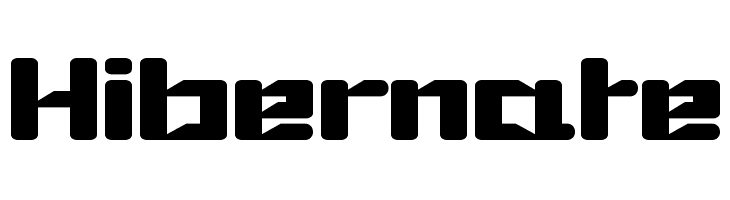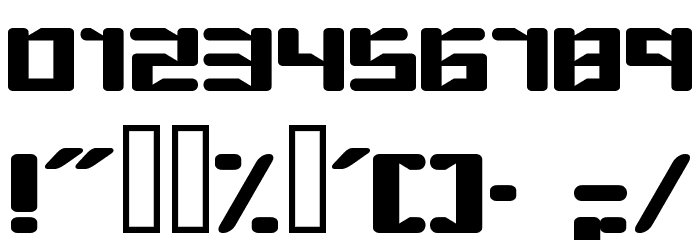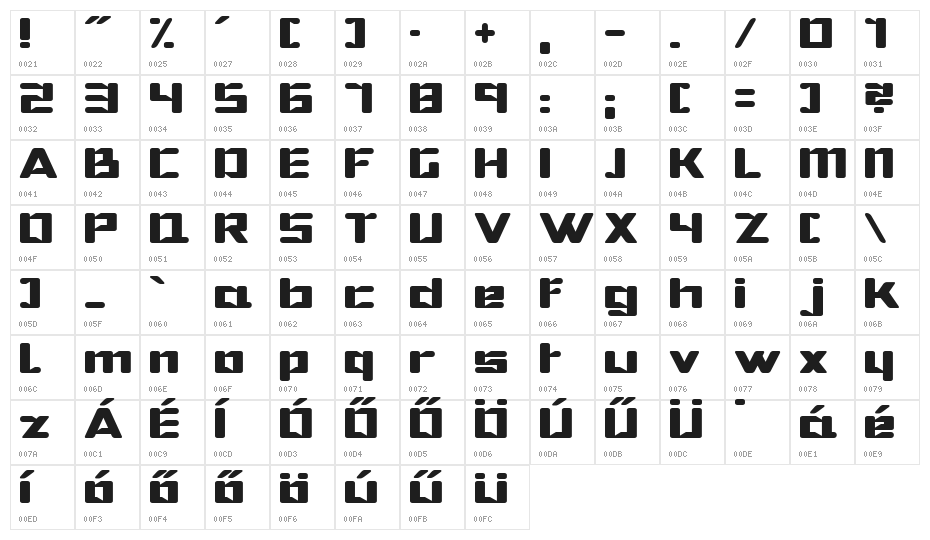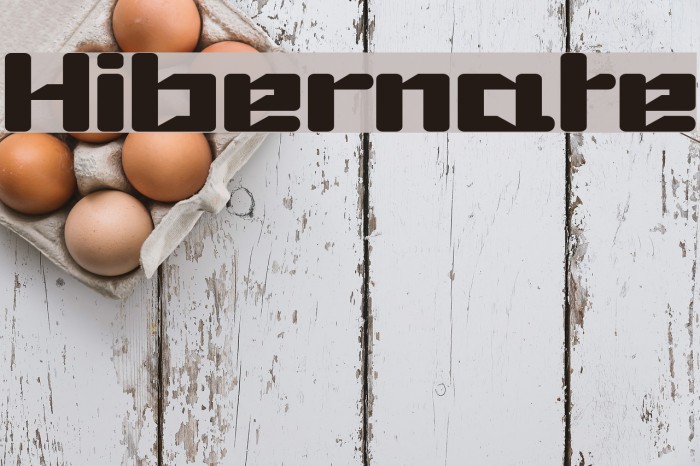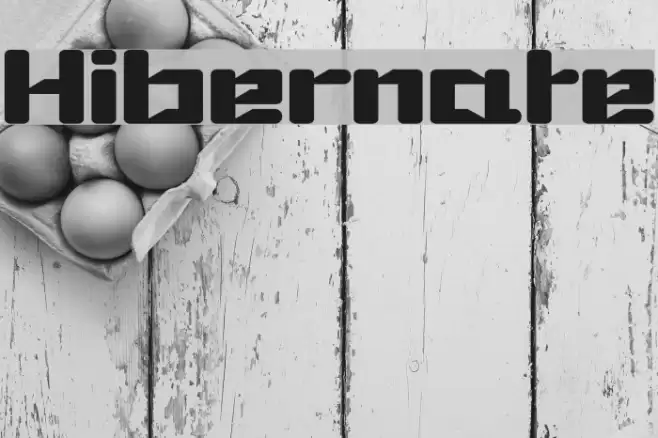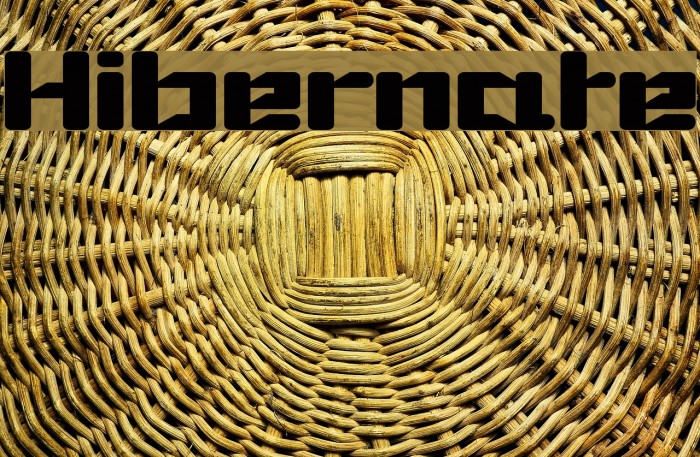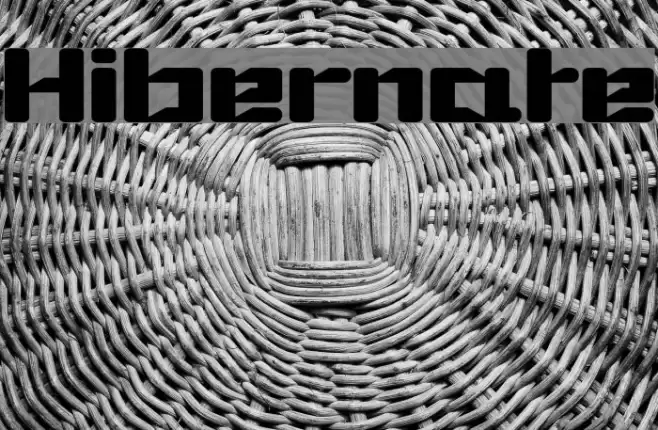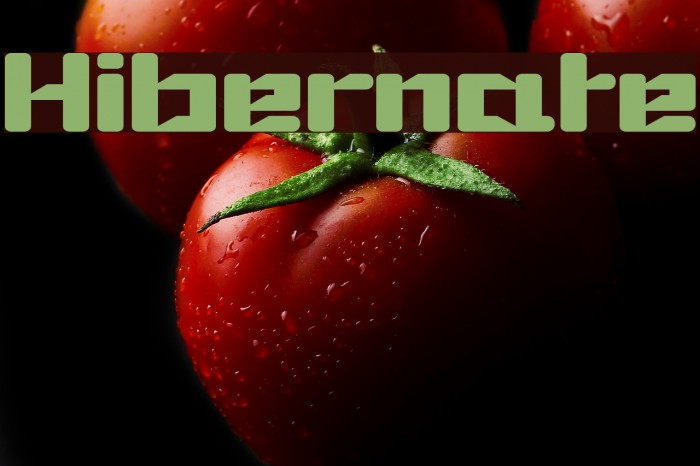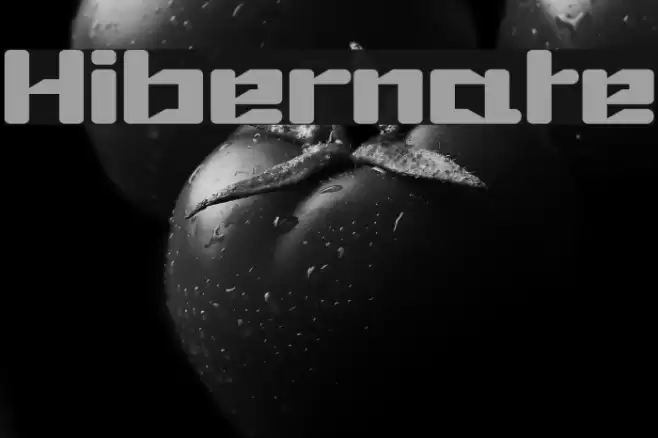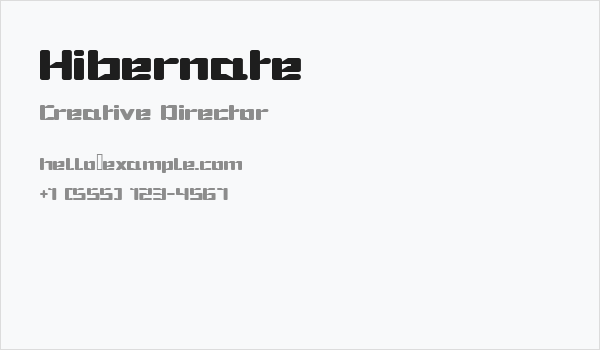
Hibernate Font
Hibernate Description
This font features a bold and geometric design with a futuristic flair. The characters are constructed with thick, block-like strokes that give a sense of strength and stability. The angular cuts and sharp edges contribute to a modern and edgy appearance, making it stand out in any design. The uppercase and lowercase letters maintain a consistent style, while the numerals and special characters are equally robust and visually striking. This font is ideal for projects that require a bold statement and a contemporary aesthetic.
| Proposed Projects | Ideal for branding, posters, headlines, and digital media that require a strong visual impact. |